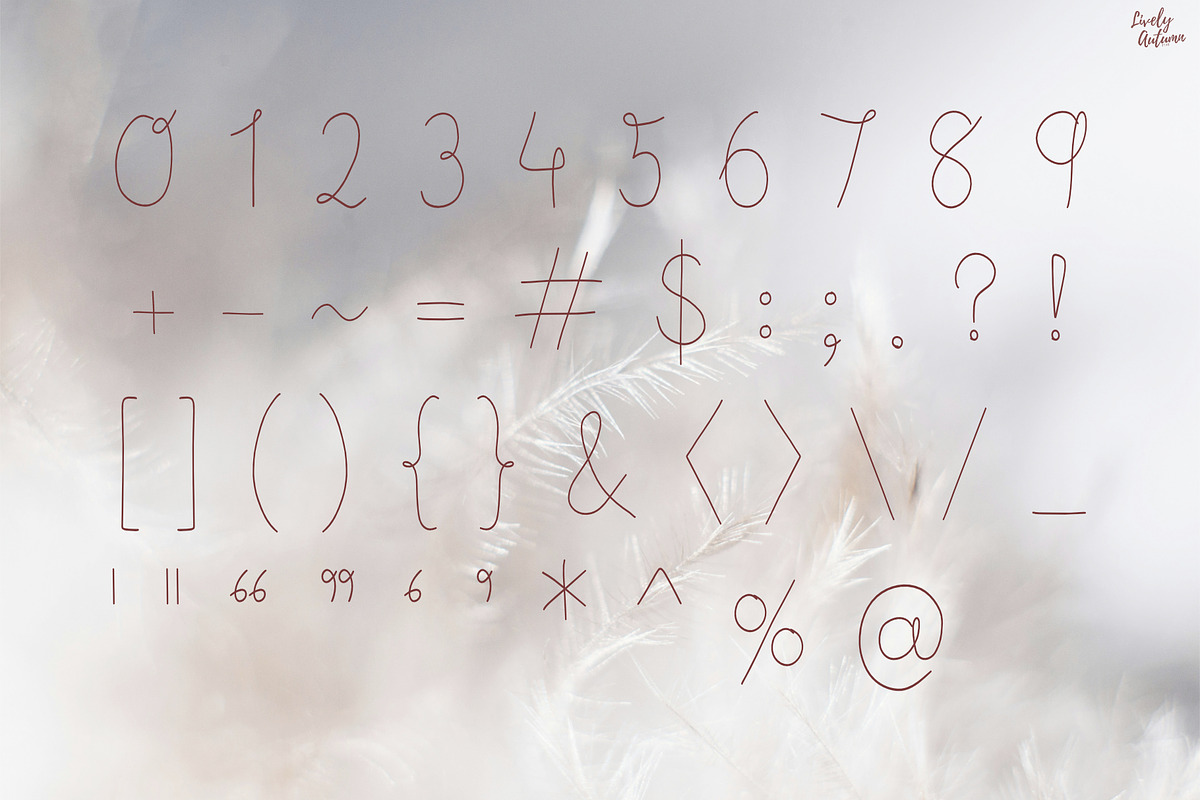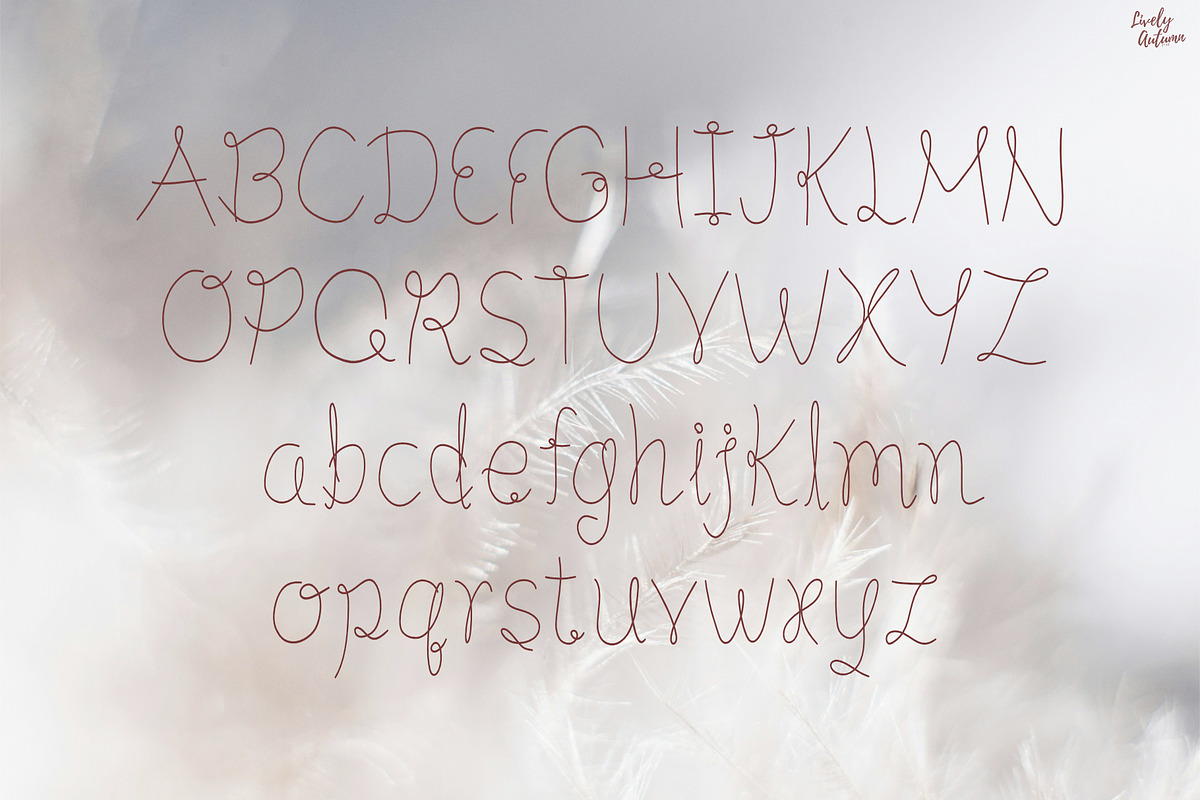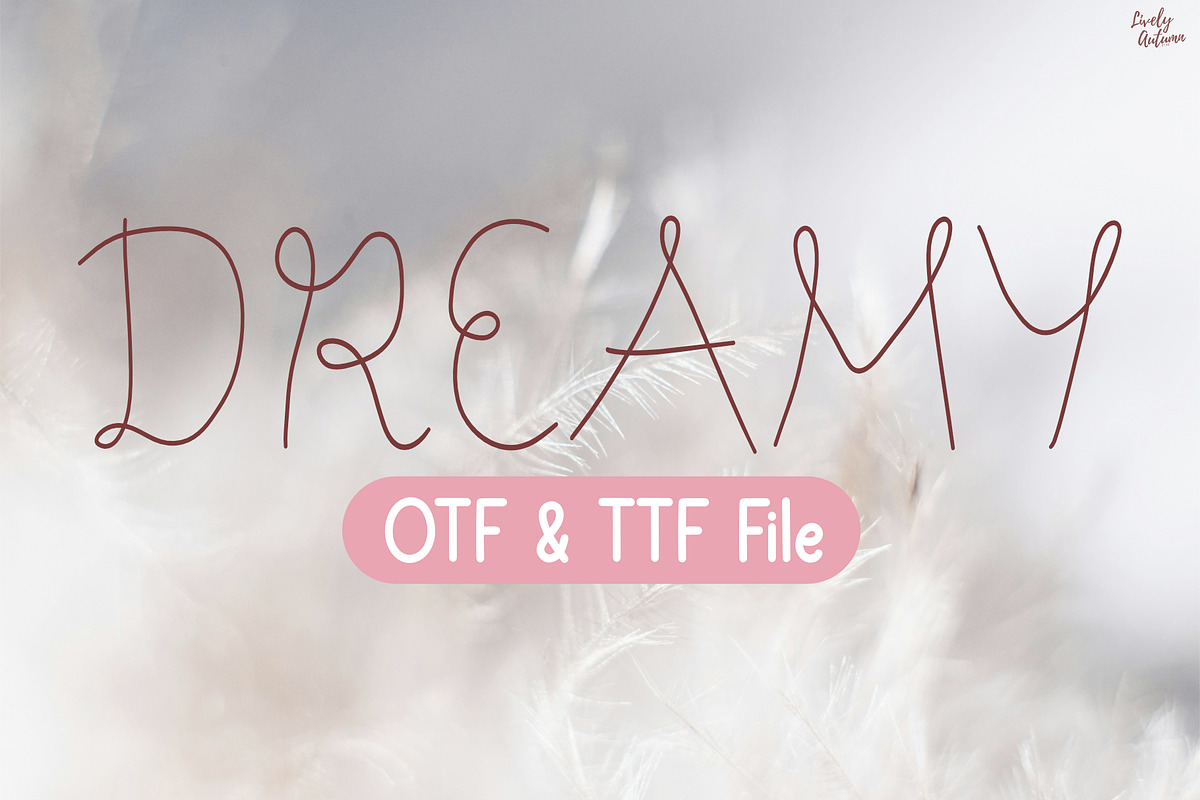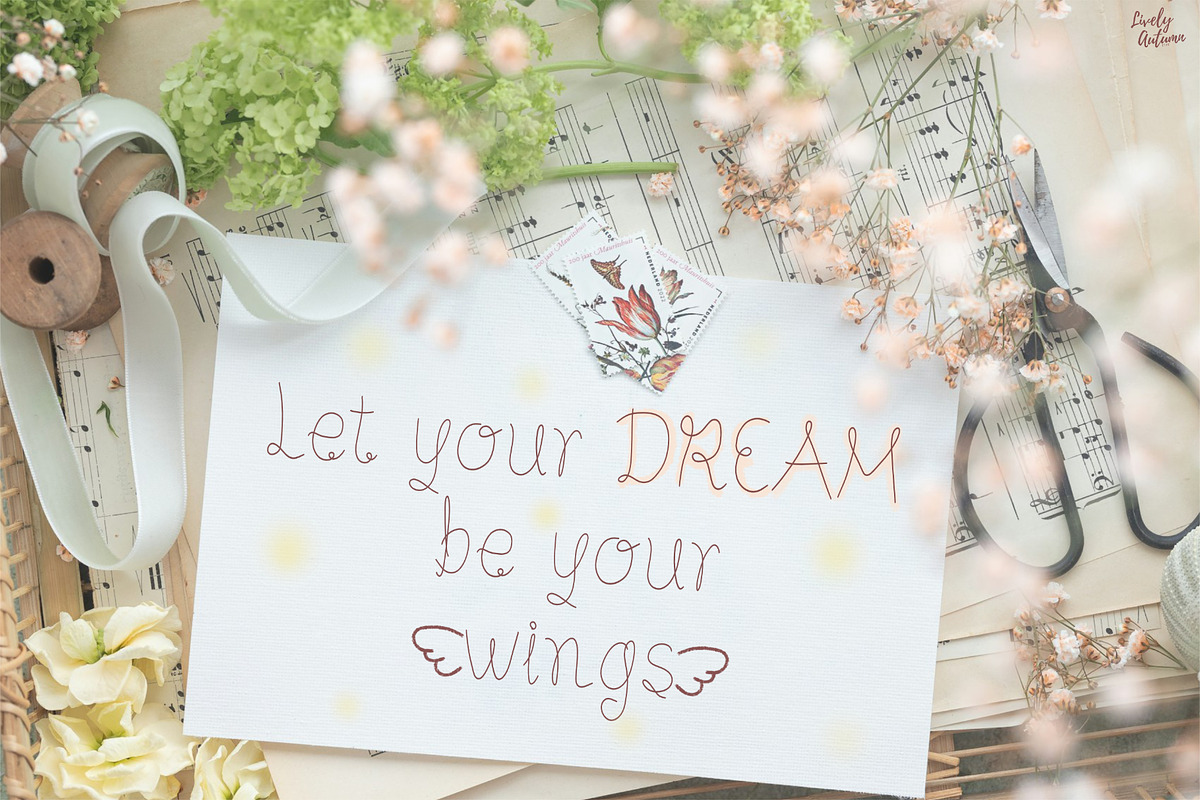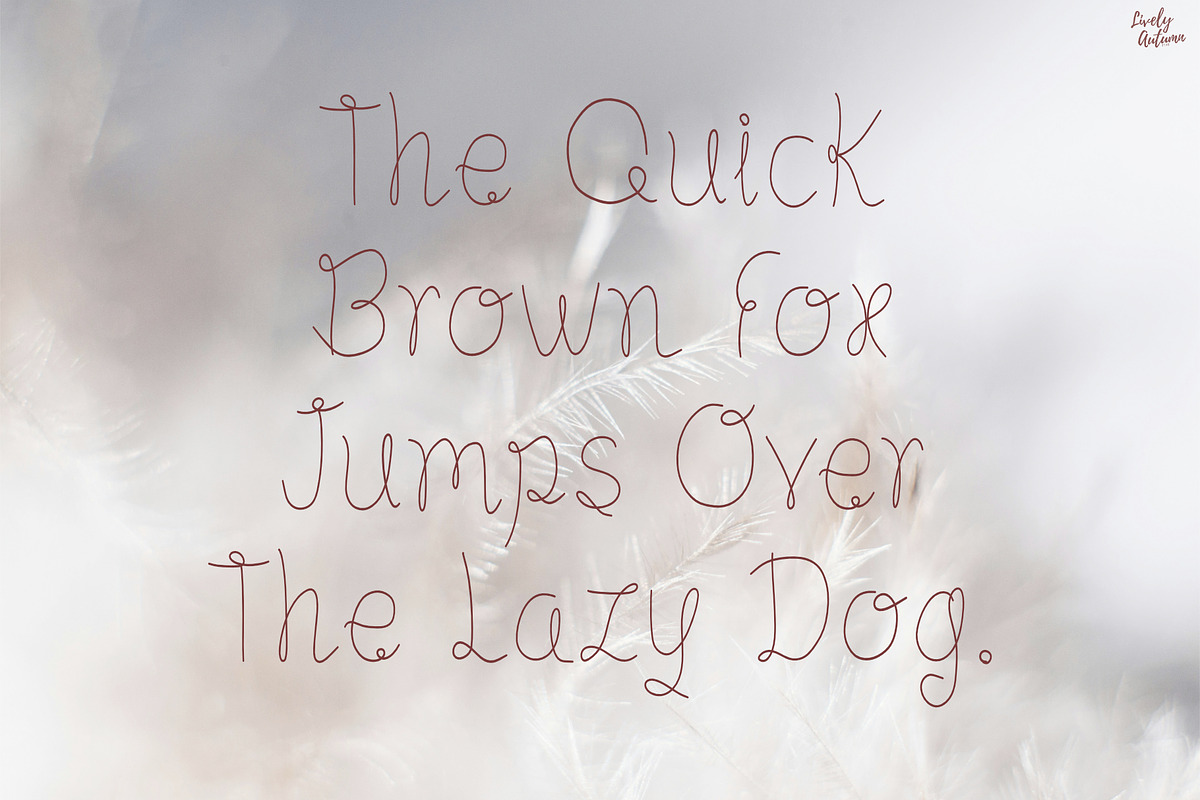
Dreamy | Handwritten Font
Dreamy Font is a thin handwriting font in fantasy style. Perfect for your personal projects and various project. From invitations to posters, social media graphics, journals, greeting cards, and much more.